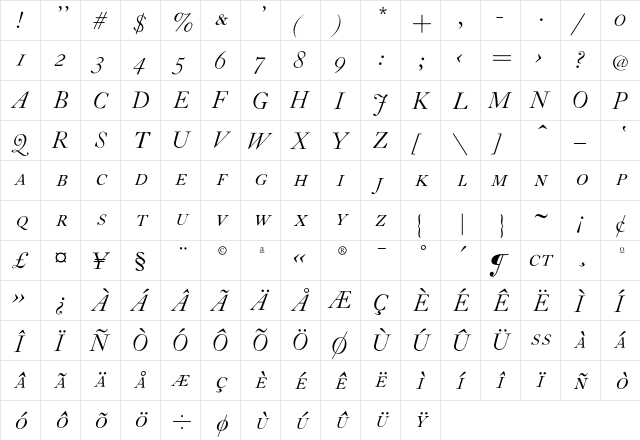
CaslonZH-SC-Italic Regular
Design Context for CaslonZH-SC-Italic Typeface
CaslonZH-SC-Italic offers clean, dependable letterforms without strong stylistic allegiance, making it a practical choice for designers who need flexibility. The dynamic lean of this cut emphasises speed and emphasis in any layout.
Pro Tip: Use CaslonZH-SC-Italic for emphasis, pull quotes, and subheadings where its slanted energy can add rhythm to the layout.